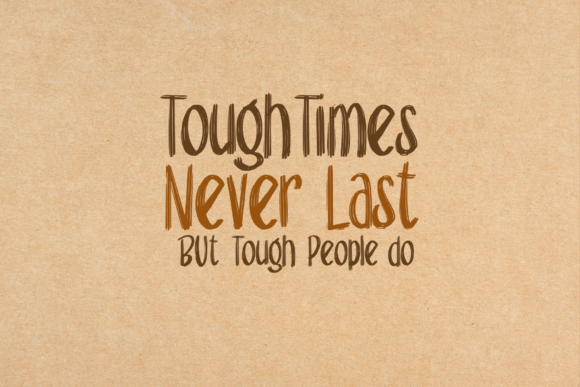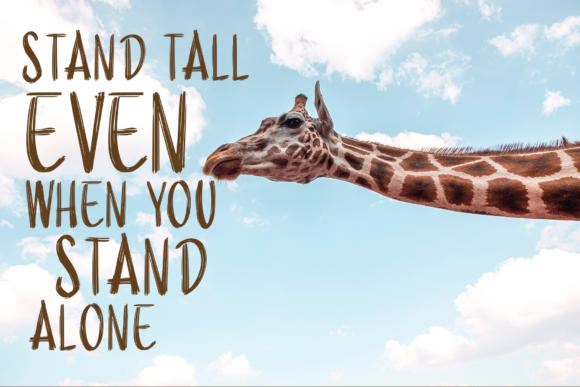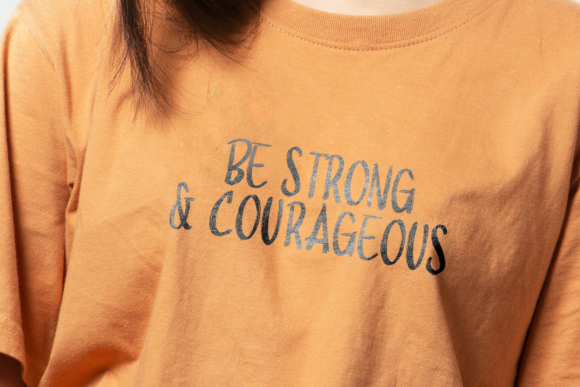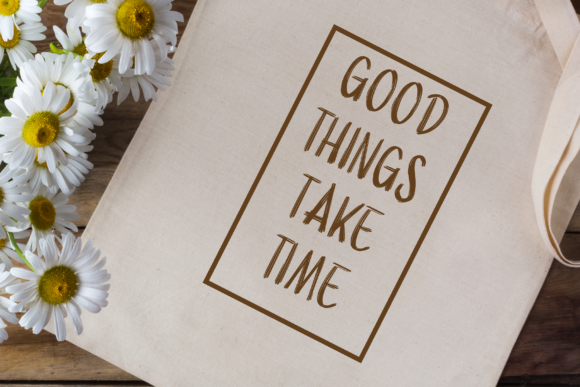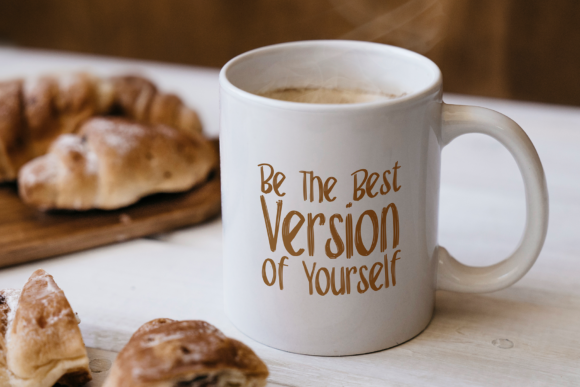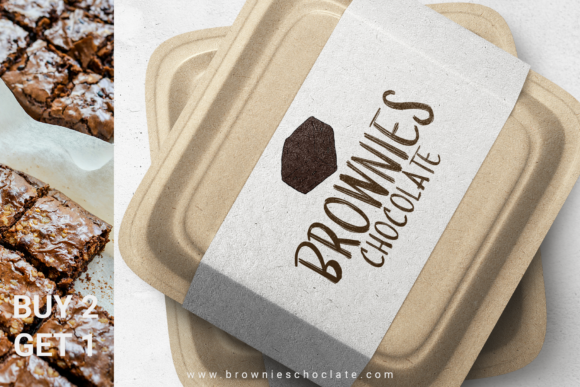
Introducing Angelo Woodhills Font: Elevate Your Designs with Versatility and Style
Are you on the lookout for a font that can breathe life into your creative projects? Look no further than Angelo Woodhills, a simple yet incredibly versatile display font. Designed to make your ideas shine, Angelo Woodhills is the perfect addition to any designer’s or crafter’s toolkit. In this article, we’ll dive into the world of Angelo Woodhills, exploring its features, benefits, and uses, and why it’s a must-have for anyone looking to elevate their designs.
The Simplicity and Versatility of Angelo Woodhills
Angelo Woodhills is more than just a font; it’s a design statement. Its simplicity is its strength, making it versatile enough to be used across a wide range of projects, from elegant logos and titles to creative crafts and DIY designs. The clean lines and classic feel of Angelo Woodhills ensure that it pairs well with various design elements, making it an excellent choice for those who value flexibility in their typography.
Key Features of Angelo Woodhills Font
- Simple yet Impactful: Angelo Woodhills boasts a straightforward design that doesn’t compromise on impact. Its letters are easy to read, yet they carry a distinct personality that sets them apart from more ornate fonts.
- Versatile: Whether you’re working on a digital project, a print design, or a craft, Angelo Woodhills adapts seamlessly. Its versatility means you can use it for a wide array of applications, from professional business cards to personal craft projects.
- Elegant and Readable: The font strikes a perfect balance between elegance and readability. This makes it ideal for headlines, titles, and short texts where you want to make a statement without sacrificing clarity.
Why Designers and Crafters Love Angelo Woodhills
Designers and crafters appreciate fonts that can keep up with their creative pace and versatile demands. Angelo Woodhills has quickly become a favorite for several reasons:
- Time-Saver: With Angelo Woodhills, you can achieve professional-looking results without spending hours on typography. Its built-in elegance saves time and effort, allowing you to focus on other aspects of your design.
- Consistency: For projects that require a consistent look, Angelo Woodhills provides a uniform appearance that ties different elements together seamlessly.
- Inspiration: Sometimes, all it takes is the right font to spark creativity. Angelo Woodhills has a way of inspiring new ideas, helping you to see your projects in a fresh light.
How to Use Angelo Woodhills in Your Projects
Incorporating Angelo Woodhills into your workflow is straightforward. Here are a few ideas to get you started:
- Branding and Logos: Use Angelo Woodhills to create memorable logos and brand titles that stand out.
- Graphic Design: Enhance your posters, flyers, and brochures with a touch of elegance.
- Crafting and DIY: Add a professional touch to your craft projects, such as handmade cards, scrapbooking, and more.
- Digital Content: Elevate your website headers, social media graphics, and digital ads with a font that grabs attention.
Angelo Woodhills is more than just a font; it’s a tool that can transform your creative projects. Its simplicity, versatility, and elegance make it an invaluable asset for designers and crafters alike. Whether you’re looking to add a professional touch to your work or simply want to explore new creative avenues, Angelo Woodhills is a font that will help you bring your ideas to life. So why wait? Add Angelo Woodhills to your collection today and discover the difference it can make in your designs.